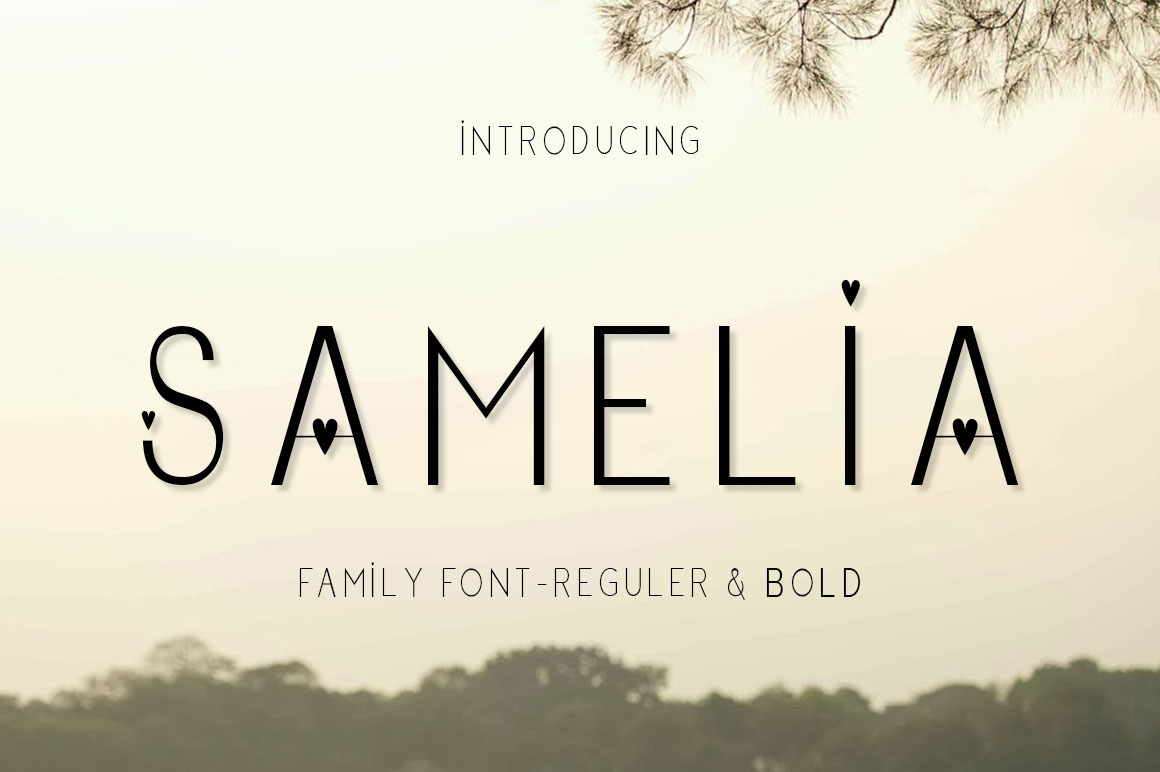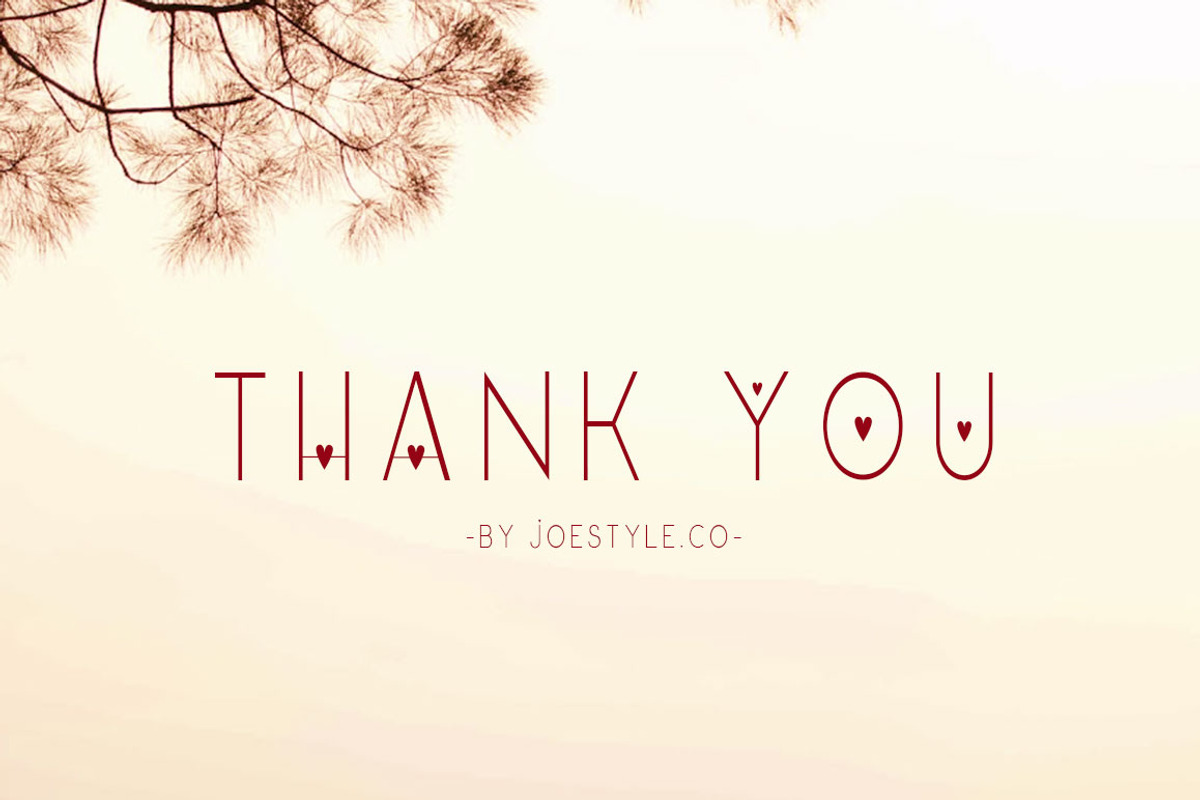
Samelia Family Font
INTRODUCING Samelia Sans Serif is a very beautiful, modern, romantic and elegant family font, can be used for your project design needs.